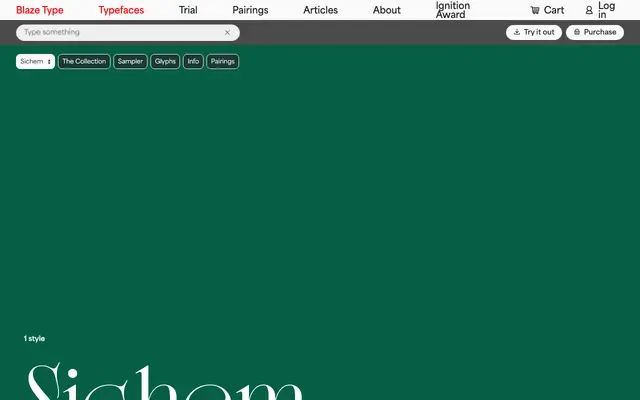
Sichem
Blaze Type · Anne-Dauphine Borione · 2022
Sichem specimen from Blaze Type
A single-weight high-contrast display serif by Anne-Dauphine Borione, drawing on Art Nouveau and Art Deco forms with alternate capitals and dramatic stroke contrast.
Designed by Anne-Dauphine Borione and released in 2022, it takes its visual cue from the lightness of hot air balloons, expressed through airy letterforms, pronounced stroke contrast and distinctive rounded characters. The Art Nouveau and Art Deco blend gives it a period-inflected character that sits well in luxury branding, editorial headlines and book covers. Alternate capitals allow selective variation for hierarchy within a composition.
A single-weight high-contrast display serif with Art Nouveau and Art Deco influences, explicitly named a display face and unsuited to text sizes; its dramatic contrast and decorative serifs place it firmly in the display category.